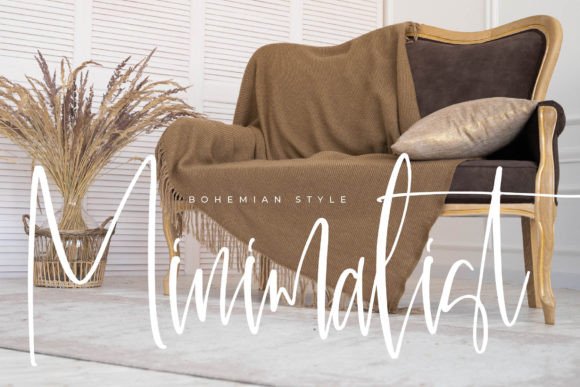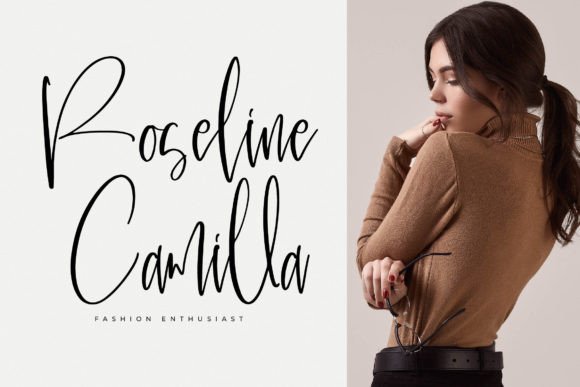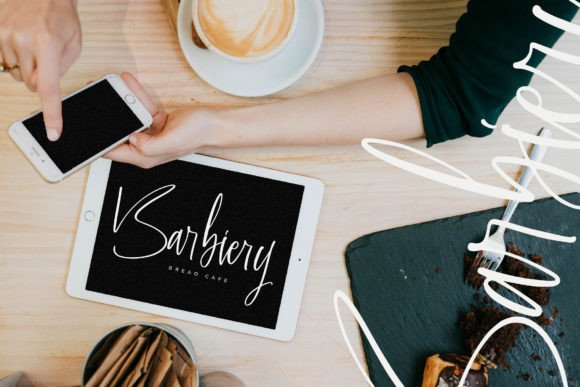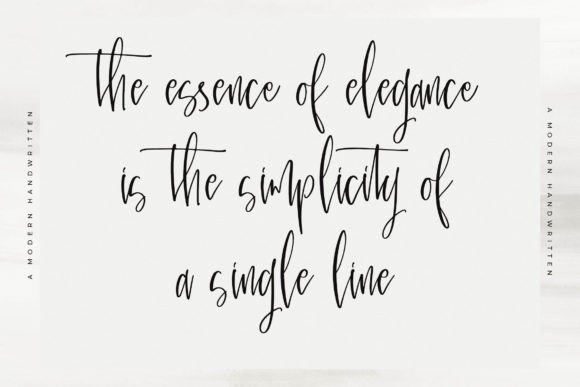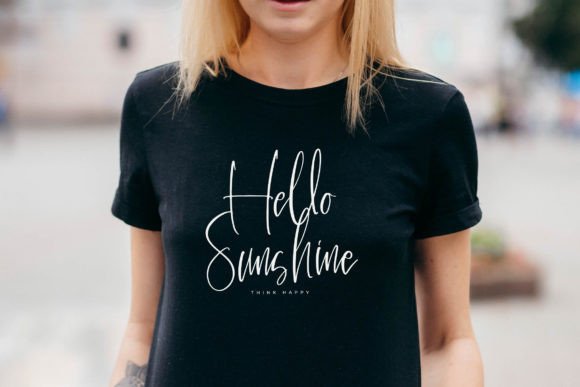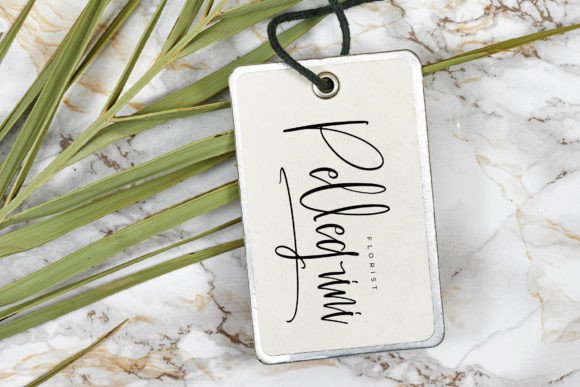
Gella Romane Font: Elevate Your Designs with Luxury and Elegance
In the world of typography, fonts play a crucial role in conveying the tone and personality of a design. For designers and crafters seeking to add a touch of luxury and sophistication to their projects, the Gella Romane Font is an excellent choice. This modern handwritten font, crafted by Letterena, is a stunning script font that can elevate a wide range of designs, from logos and branding projects to homeware designs, product packaging, and more.
The Characteristics of Gella Romane Font
Gella Romane Font is a luxury script font that boasts a unique, modern handwritten style. Its elegant and refined appearance makes it perfect for designs that require a touch of sophistication. The font features:
- Beautifully crafted letters: Each letter is carefully designed to exude elegance and refinement, making it ideal for high-end designs.
- Modern handwritten style: The font’s modern handwritten style gives it a fresh and contemporary feel, perfect for designs that require a touch of personality.
- Luxury script: Gella Romane Font is a true luxury script font, making it suitable for designs that require a high-end feel.
Uses of Gella Romane Font
The versatility of Gella Romane Font makes it suitable for a wide range of design projects, including:
- Logos and branding projects: Create a lasting impression with a luxurious logo that showcases your brand’s personality.
- Homeware designs: Add a touch of elegance to your homeware designs, such as stationery, wall art, and textiles.
- Product packaging: Elevate your product packaging with a luxurious font that reflects your brand’s values.
- Mugs, quotes, posters, and shopping bags: Create eye-catching designs for everyday products that make a statement.
- T-shirts, book covers, and name cards: Use Gella Romane Font to create stunning designs for clothing, book covers, and business cards.
- Invitation cards, greeting cards, and labels: Add a touch of luxury to your stationery and invitations.
- Photography and watermark: Use the font to create elegant watermarks for your photographs.
- Special events: Create stunning designs for special events, such as weddings, galas, and conferences.
Why Choose Gella Romane Font?
With so many fonts available, why choose Gella Romane Font? Here are a few reasons why designers and crafters love this luxury script font:
- Unique and elegant design: Gella Romane Font boasts a unique and elegant design that sets it apart from other fonts.
- High-quality craftsmanship: The font is crafted with attention to detail, ensuring a high-quality finish.
- Versatility: The font is suitable for a wide range of design projects, making it a valuable addition to any design collection.
Tips for Using Gella Romane Font
To get the most out of Gella Romane Font, here are a few tips:
- Pair with complementary fonts: Pair Gella Romane Font with complementary fonts to create a stunning visual effect.
- Experiment with colors: Try out different colors to find the perfect match for your design.
- Play with sizes: Experiment with different font sizes to create visual hierarchy and emphasis.
In conclusion, Gella Romane Font is a luxury script font that can elevate a wide range of design projects. Its unique and elegant design, versatility, and high-quality craftsmanship make it a valuable addition to any design collection. Whether you’re a designer or crafter, Gella Romane Font is an excellent choice for anyone seeking to add a touch of luxury and sophistication to their designs.